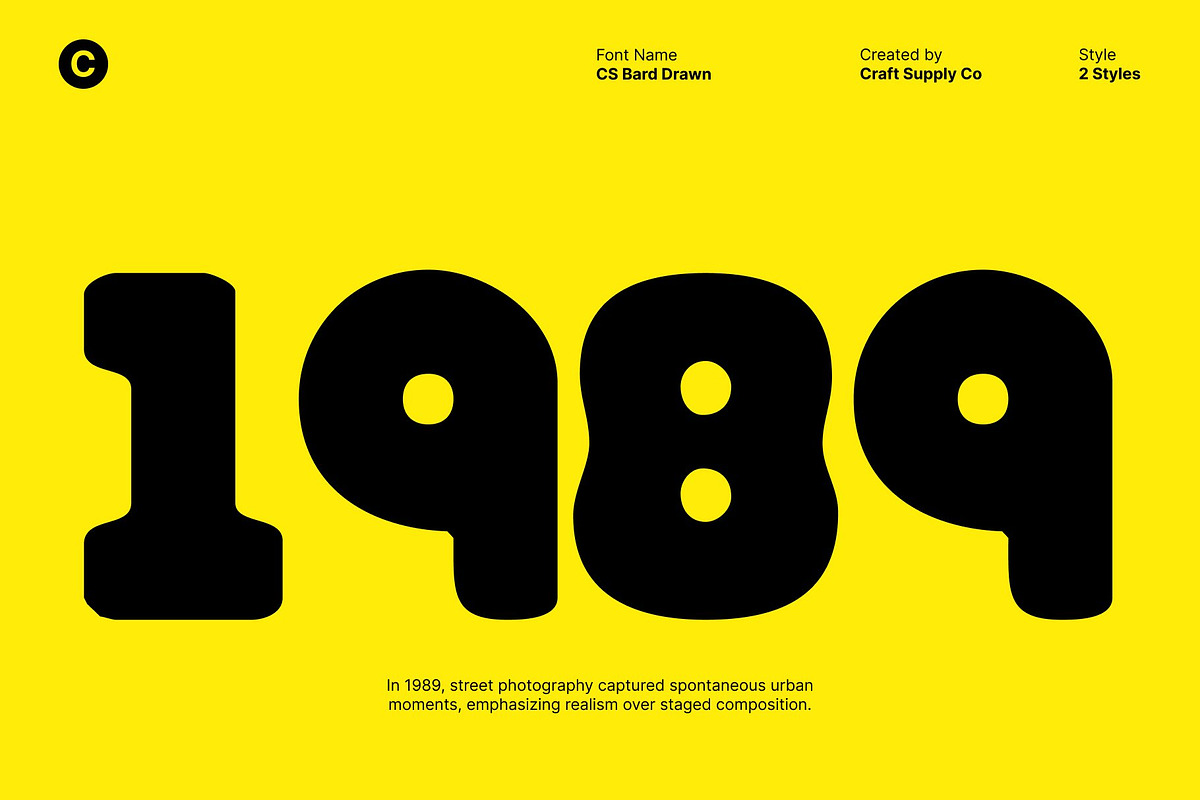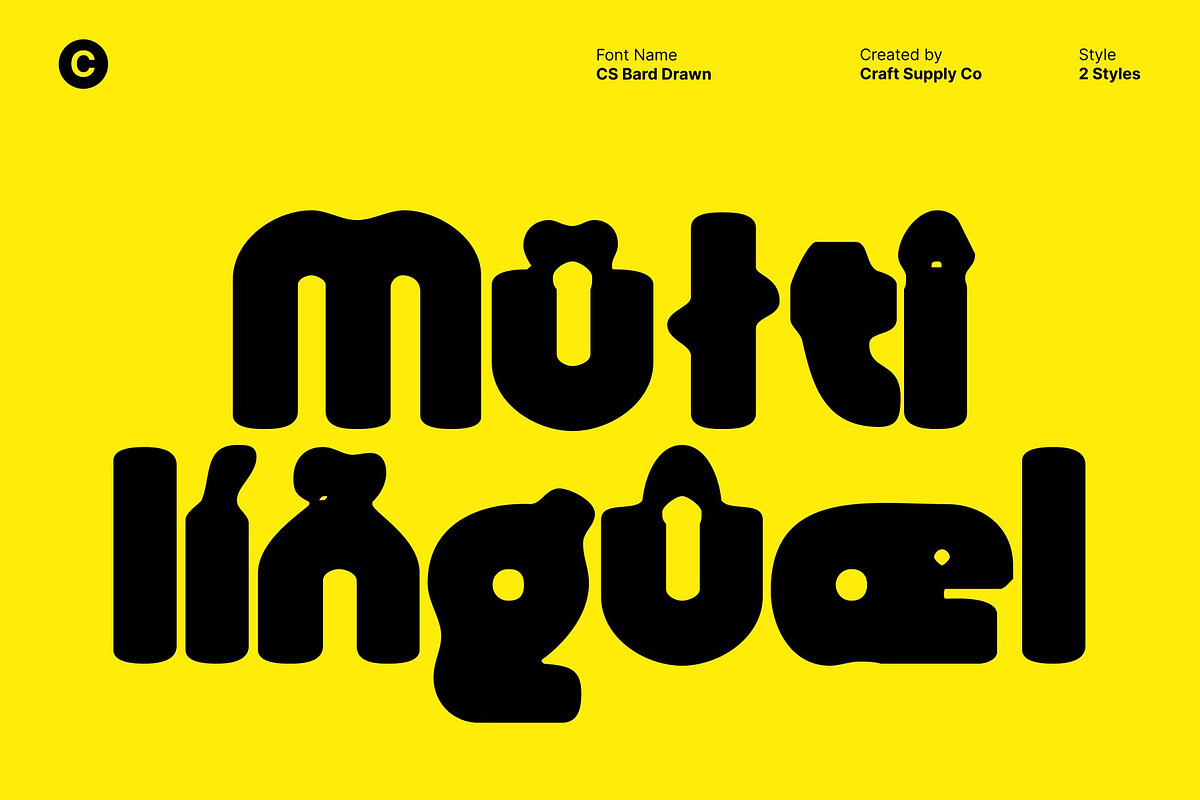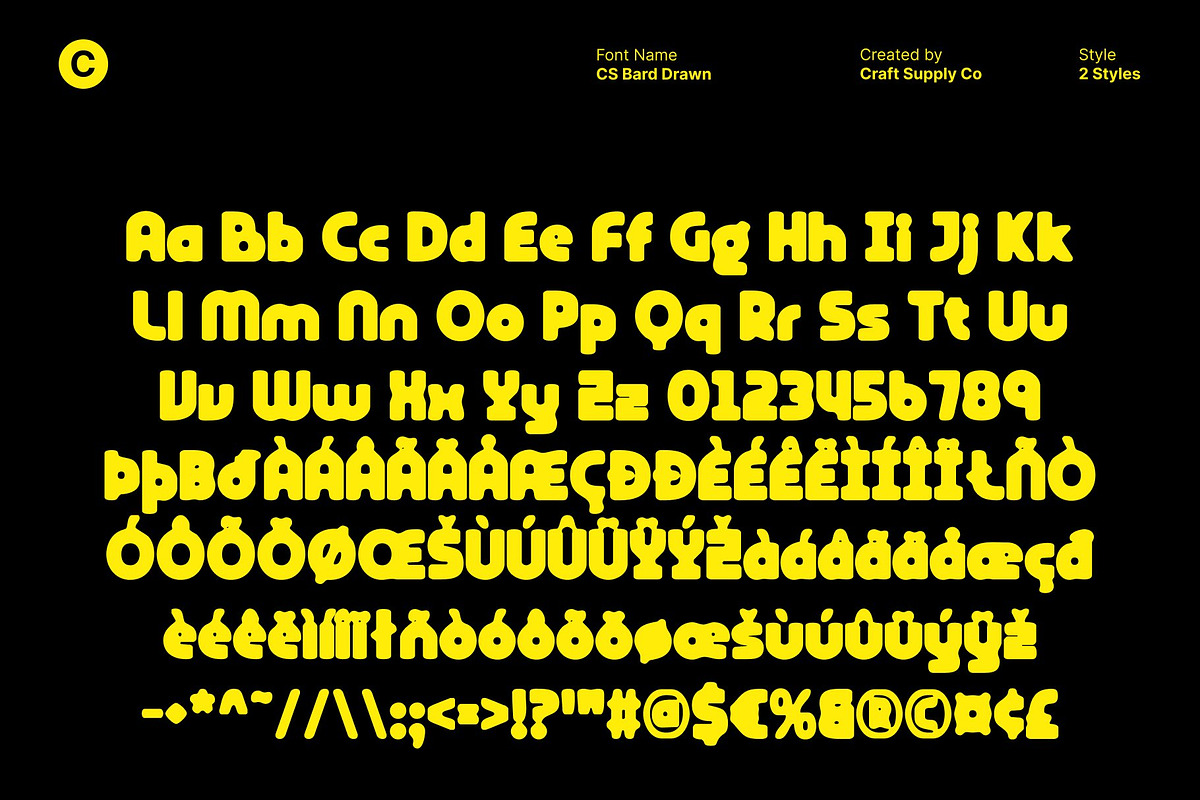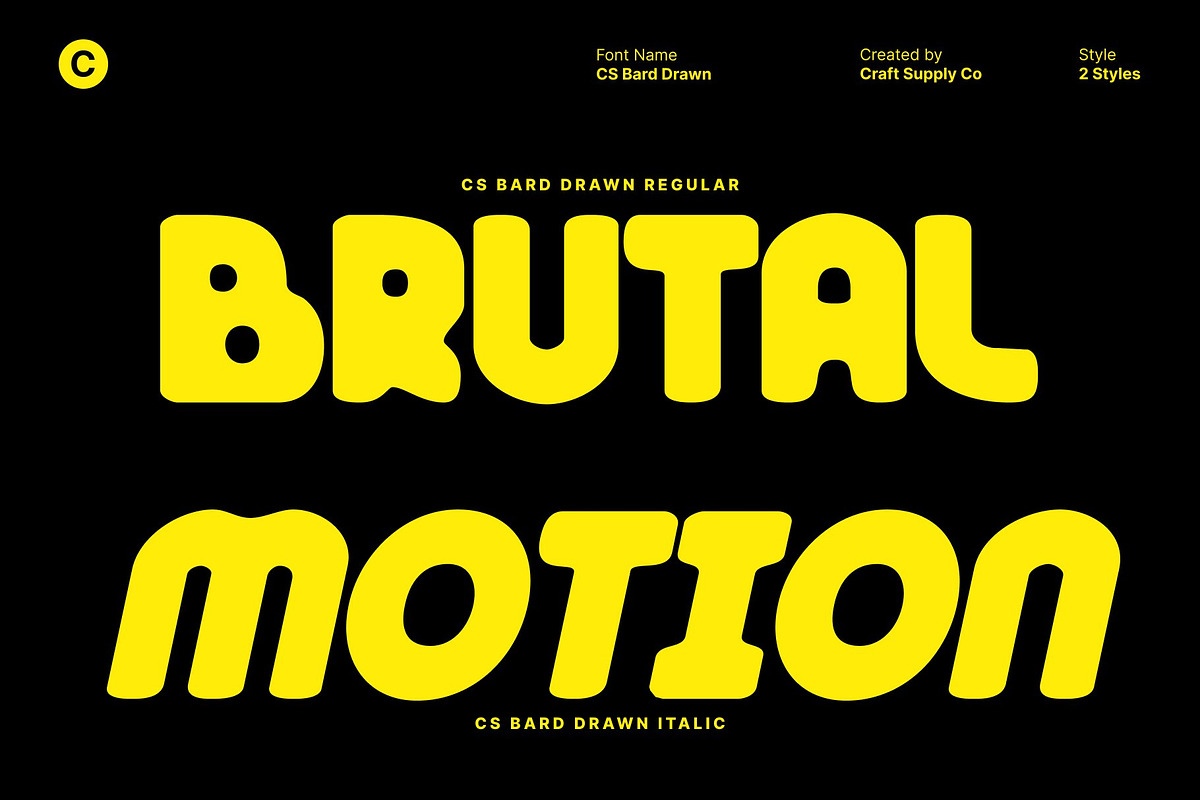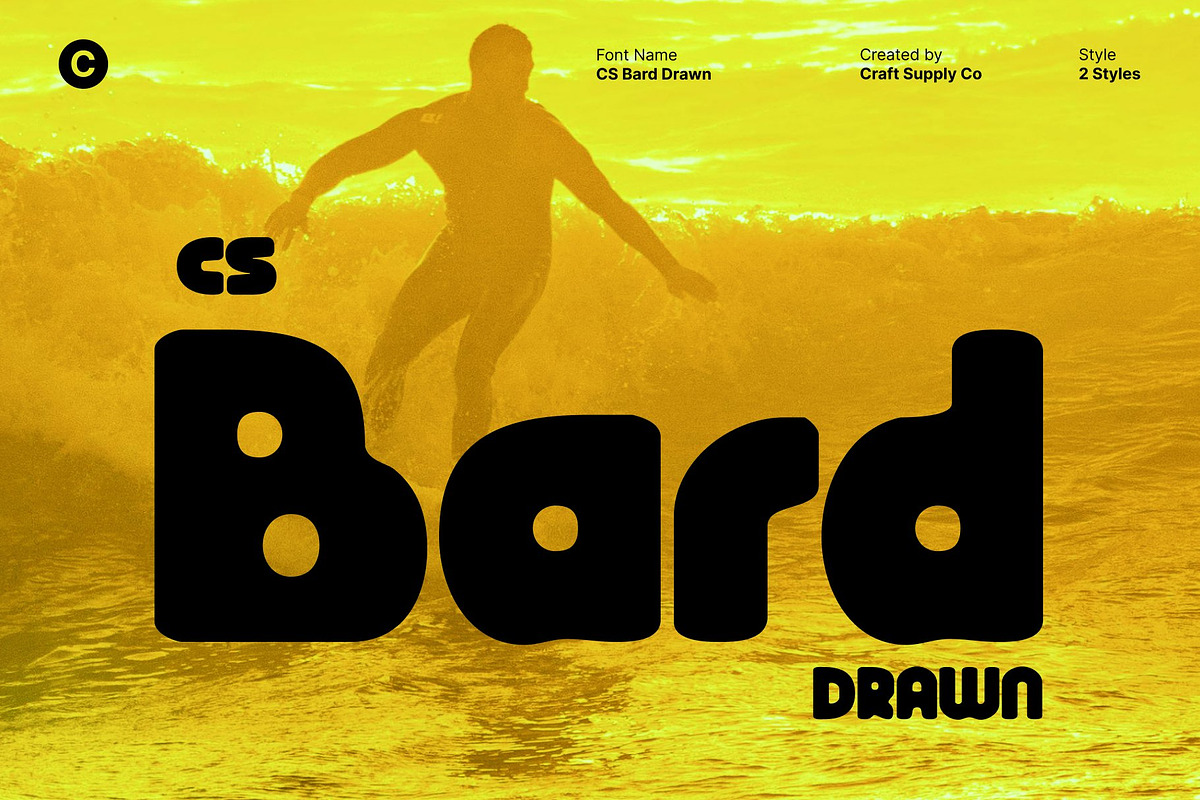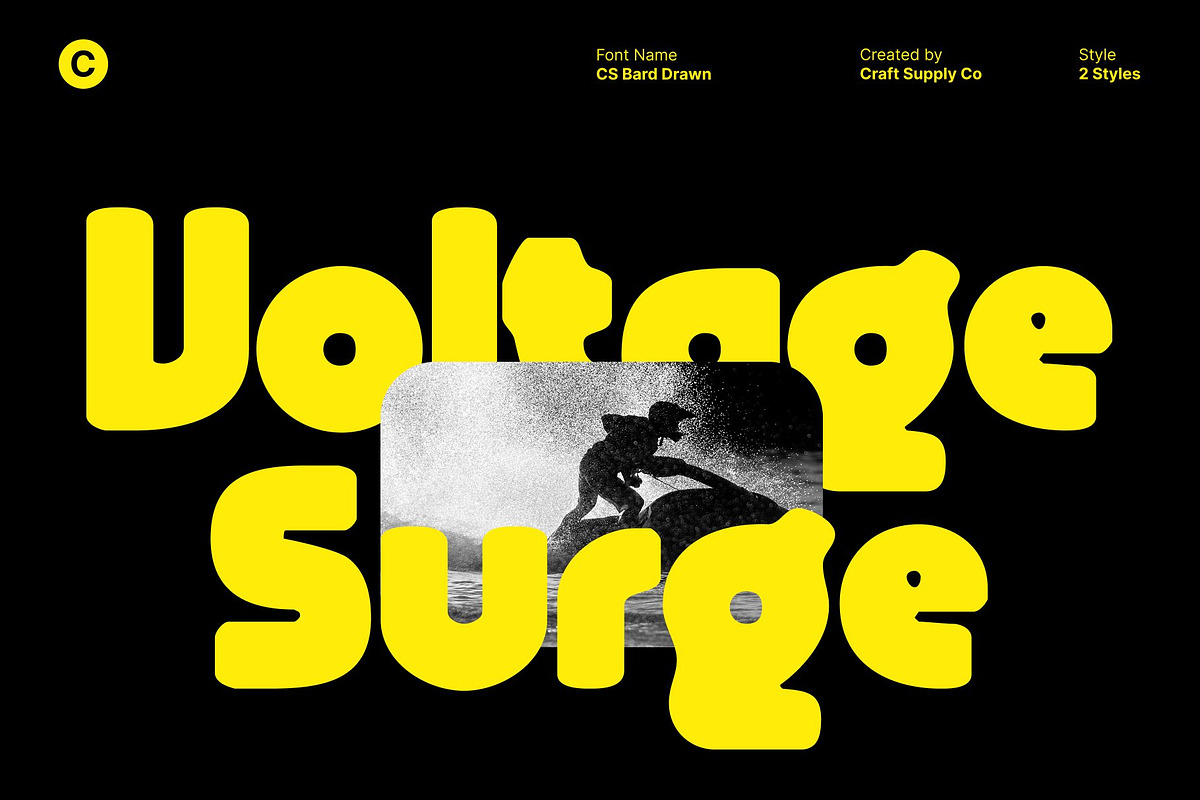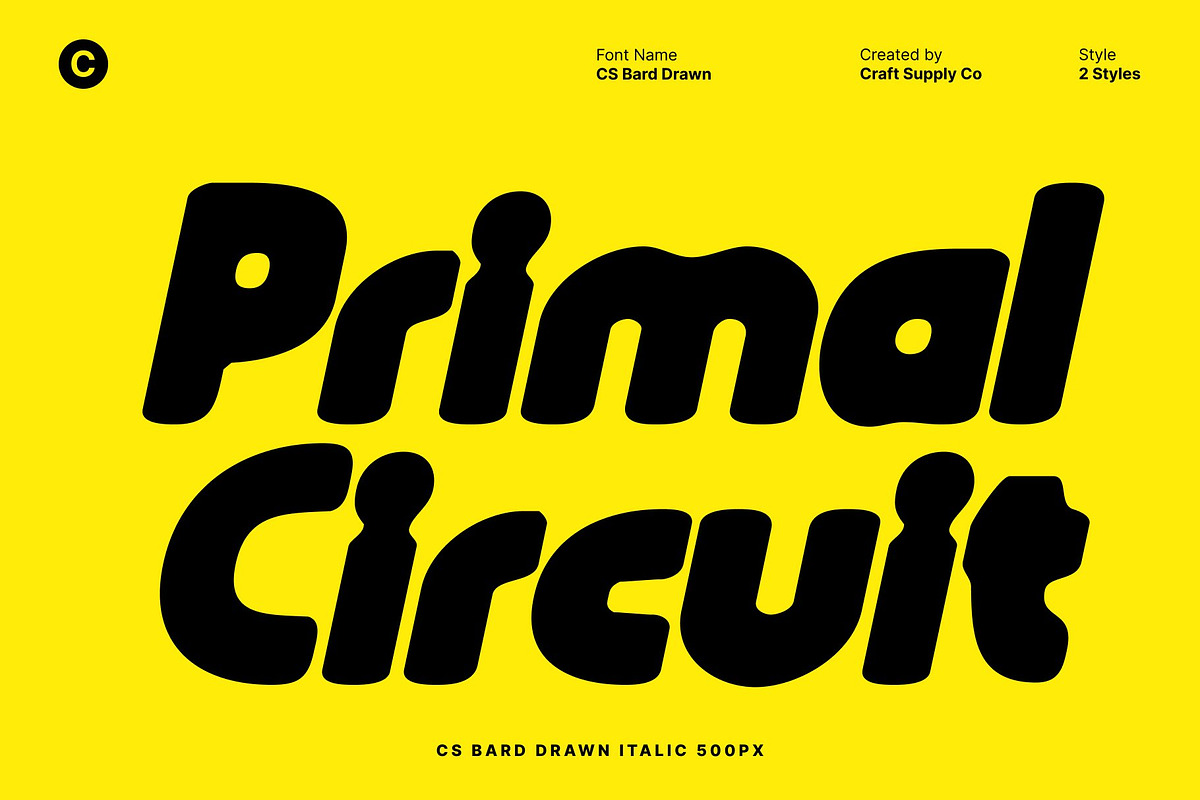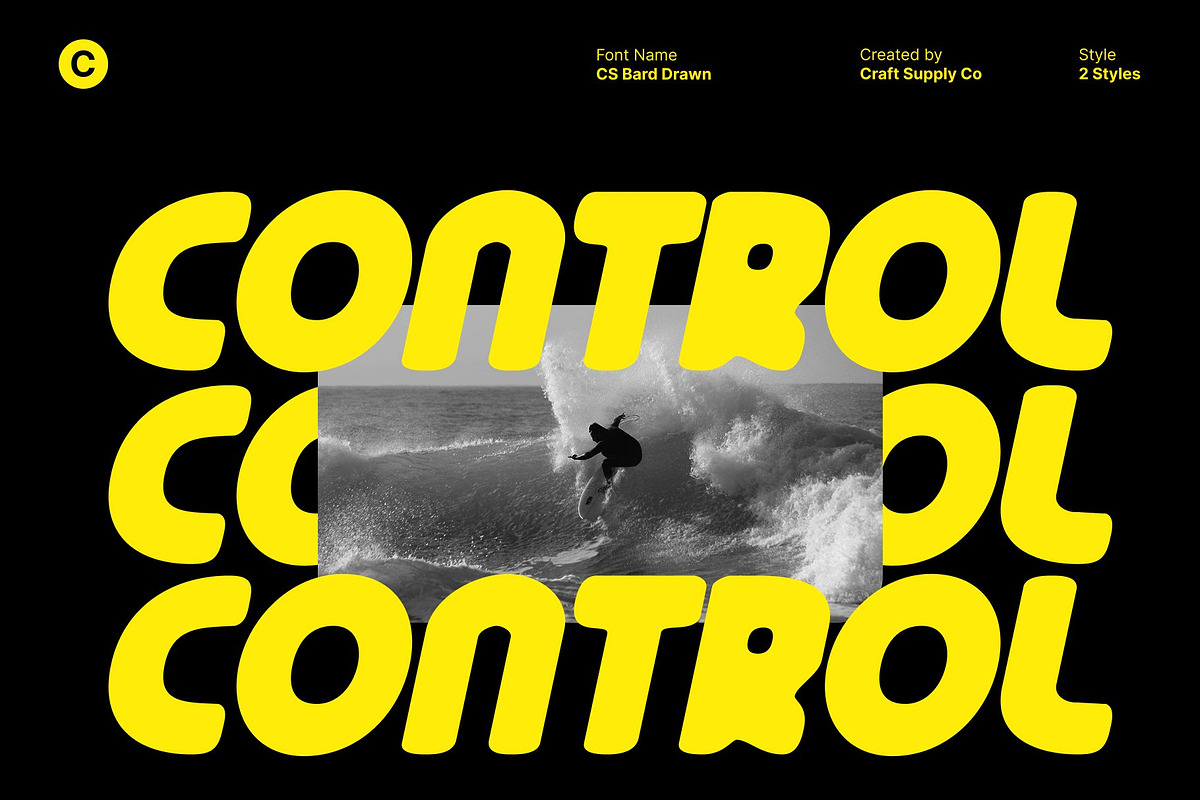
CS Bard Drawn
CS Bard Drawn – Bold Display Font: Chunky, Modern, and Playful
Chunky Strength with a Hand-Drawn Spirit This is a bold, chunky display font that radiates confidence and personality. Built with thick strokes and strong geometric forms, it delivers a powerful modern presence at first glance. The hand-drawn texture adds an expressive, handcrafted edge, giving the font a lively character that feels bold yet approachable perfect for designs that demand instant attention.
Playful Charm with Quirky Details Beyond its solid construction, This font features subtle irregularities and quirky details that bring warmth and playfulness to its form. These drawn nuances soften the bold structure, creating a friendly, energetic vibe that balances strength with creativity. The result is a font that feels confident without being rigid, fun without being chaotic.
Versatile for Creative Applications This font works beautifully across a wide range of creative uses, including posters, branding, packaging, editorial layouts, and social media graphics. Its clean geometry ensures strong readability, while the playful hand-drawn character adds a contemporary and expressive touch suitable for both professional and fun-forward designs.
Eye-Catching and Unforgettable Designed to stand out, this font brings personality, charm, and modern flair to every project. It’s an excellent choice for designers seeking a display font that is bold, memorable, and full of creative energy making every message feel confident, playful, and visually engaging.